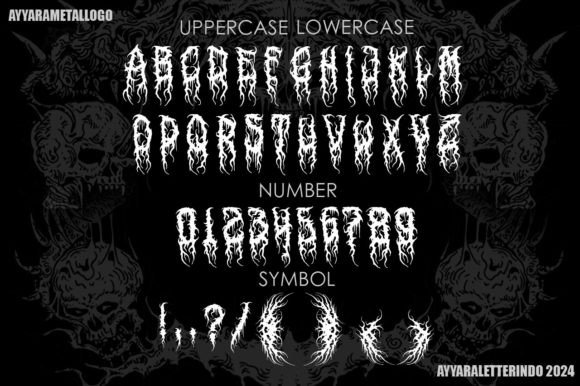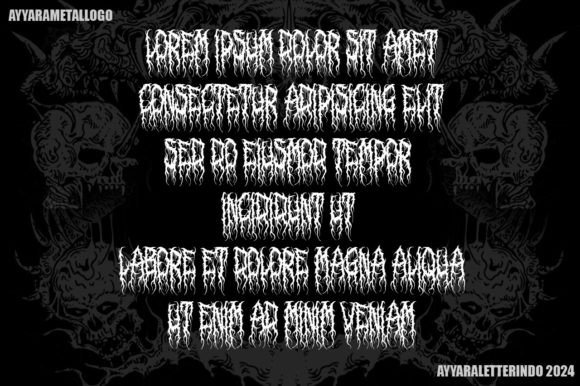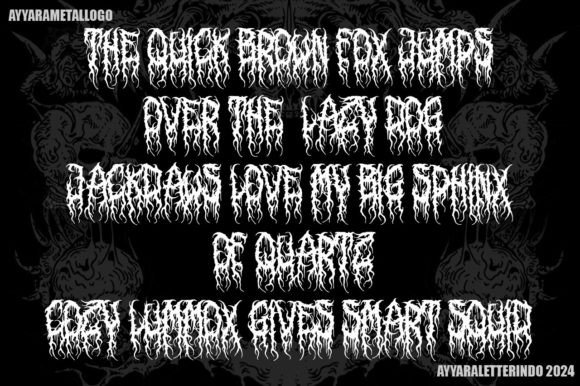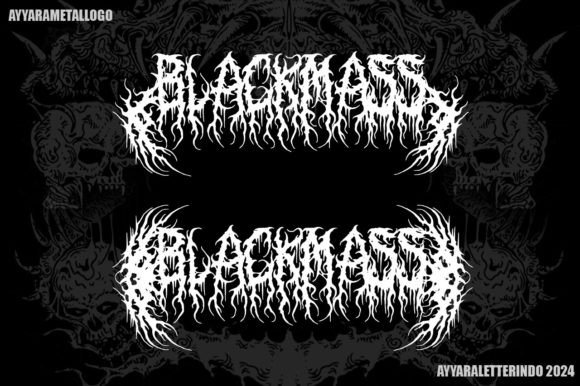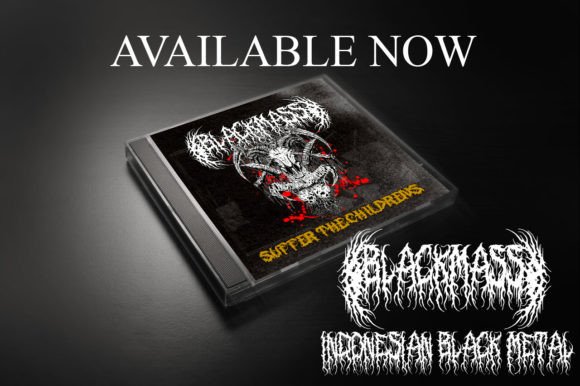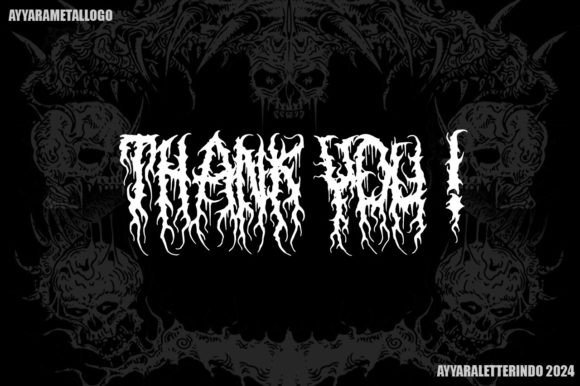
The Dark Allure of Black Mass Font: A Designer’s Delight
I still remember the night I was working on a project for a metal band, struggling to find the perfect font to capture their dark and edgy vibe. The client was adamant about creating a logo that would make their fans swoon, and I was determined to deliver. That’s when I stumbled upon the Black Mass font – a game-changing black metal font that would become the perfect fit for their branding. In this article, I’ll share my experience with Black Mass, its features, and how to make the most of it in various design platforms.
An Honest Review of Black Mass Font
What I Love About Black Mass Font
- ✨ Unique and edgy design: Black Mass font is a stunning example of black metal typography, perfect for creating bold and striking logos.
- ✅ Highly versatile: This font can be used for a wide range of design projects, from band logos to brand identities.
- 🔥 Instant recognition: The font’s distinctive style is sure to grab attention and leave a lasting impression.
While Black Mass font is an excellent choice for many design projects, there are a few things to keep in mind:
- 🤔 Limited legibility at small sizes: Due to its intricate design, Black Mass font may become difficult to read at very small sizes.
- ⚠️ Requires careful pairing with other fonts: To avoid visual overload, it’s essential to choose complementary fonts that won’t compete with Black Mass.
- Experiment with OpenType features, such as glyphs and stylistic alternates, to add unique touches to your design.
The Backstory of Black Mass Font
Legend has it that Black Mass font was created by a mysterious designer who was obsessed with the dark, rebellious spirit of black metal music. Inspired by the genre’s bold and unapologetic style, the designer crafted a font that would embody the same ethos. The result is a font that’s both menacing and mesmerizing – perfect for designers who want to make a statement.
Q: What type of designs is Black Mass font best suited for?
A: Black Mass font is ideal for designs that require a bold, edgy look, such as metal band logos, horror-themed artwork, or dark fantasy illustrations.